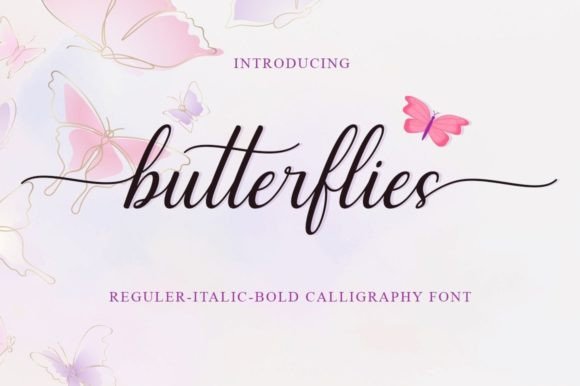
Welcome to the world of Butterflies Font, where elegance meets fluidity in a captivating dance of letters. This script font is a testament to the beauty of handwritten artistry, crafted with meticulous care to bring charm and sophistication to your creative projects.
Immerse yourself in a world of captivating letters, where each stroke tells a story and every word dances with grace. Butterflies Font is not just a font; it's an experience that transforms your digital creations into masterpieces of written art.
With its delicate curves and balanced characters, Butterflies Font seamlessly blends with a myriad of design styles, adding a touch of elegance to logos, branding, invitations, social media posts, and more. Its versatility is truly remarkable, allowing you to effortlessly elevate your projects to new heights of creativity.
Whether you're designing a wedding invitation that radiates romance or crafting a logo that exudes timeless charm, Butterflies Font will be your trusted companion. Its PUA encoding makes it incredibly user-friendly, ensuring that you can access all the glyphs and swashes with a few simple clicks.
Discover the magic of Butterflies Font today and let your words take flight. Experience the joy of creating designs that captivate and inspire, and leave a lasting impression on your audience.